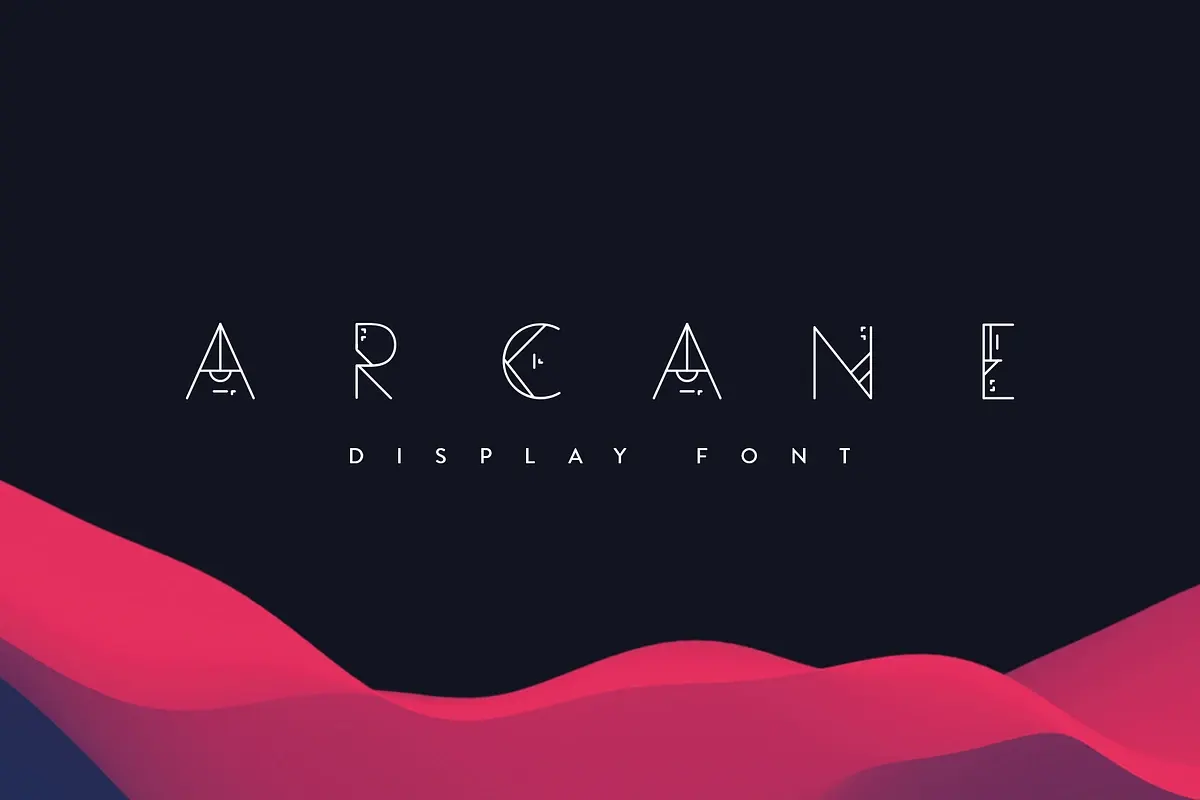
Arcane | Display Font Free Download
Arcane | Display Font Free Download is a mystical and eye-catching typeface designed to bring a sense of mystery, fantasy, and bold creativity to your projects. With its sharp, ornamental details and gothic-inspired style, Arcane is perfect for book covers, movie titles, fantasy game designs, posters, and branding that needs a dark, dramatic aesthetic.
This display font shines in large sizes where its intricate forms can be fully appreciated. Whether you’re working on a fantasy-themed event invite or a magical logo concept, Arcane adds an unforgettable visual impact.